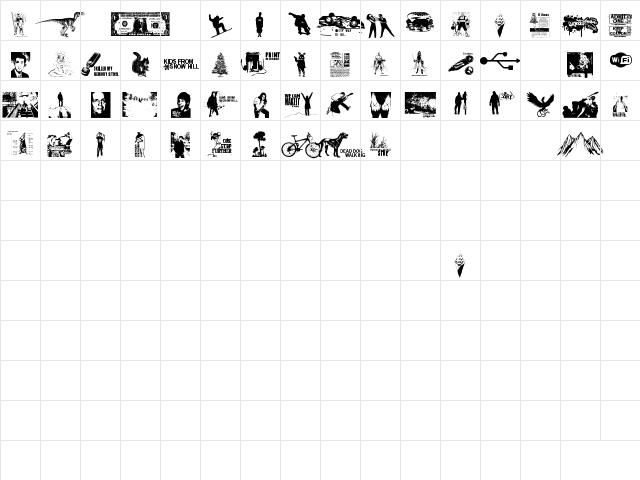
Kids From Snow Hill Regular
Design Context for Kids From Snow Hill Typeface
Kids From Snow Hill has an approachable, lighthearted character — its loose, expressive forms are well-suited to children's content, casual branding, and fun-first design.
Font Pairing: Pairs well with a rounded or humanist sans for body copy, maintaining the friendly tone without relying on Kids From Snow Hill to carry extended reading.
Pro Tip: Use Kids From Snow Hill at larger display sizes where its expressive character can land. Pair with a clean, simple sans for body copy to maintain readability.